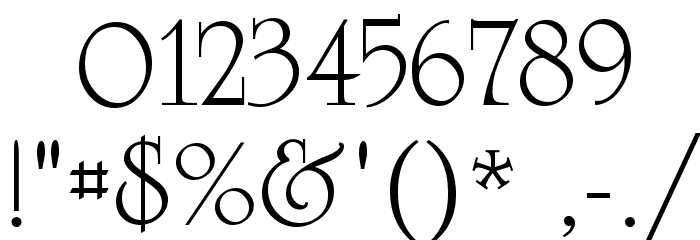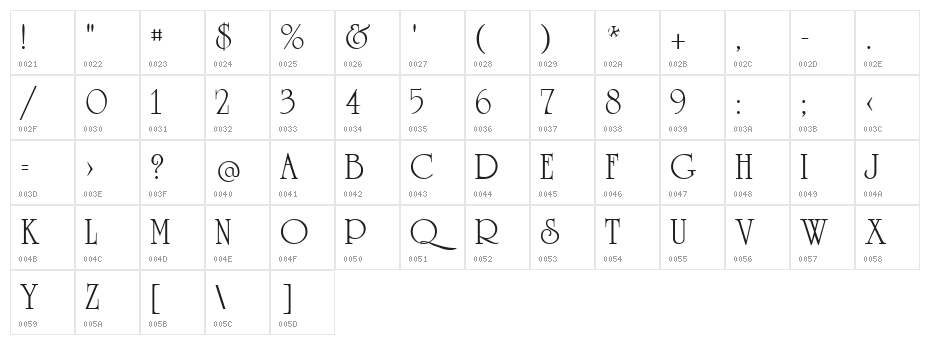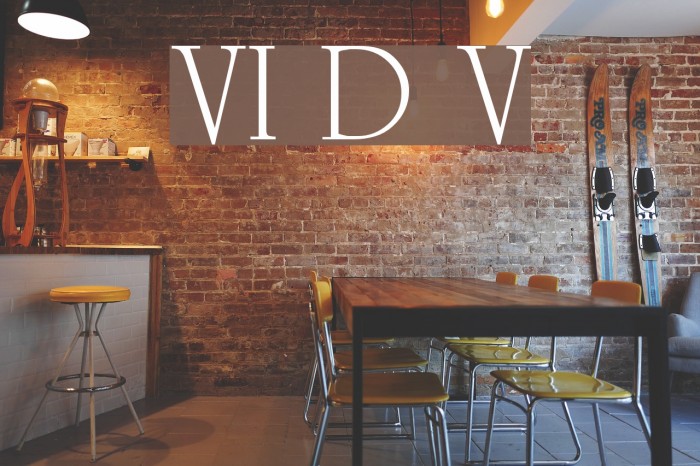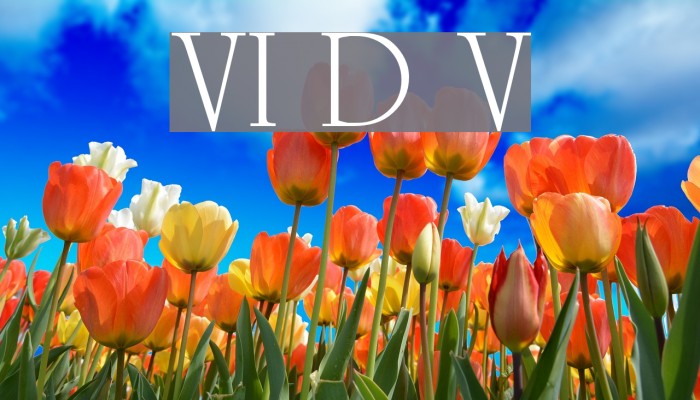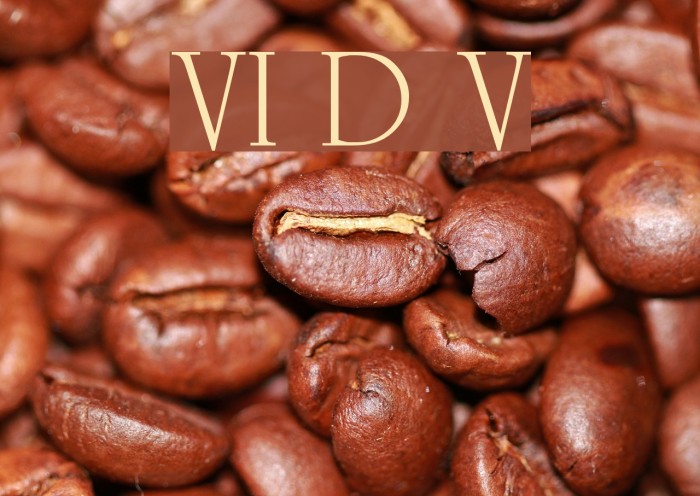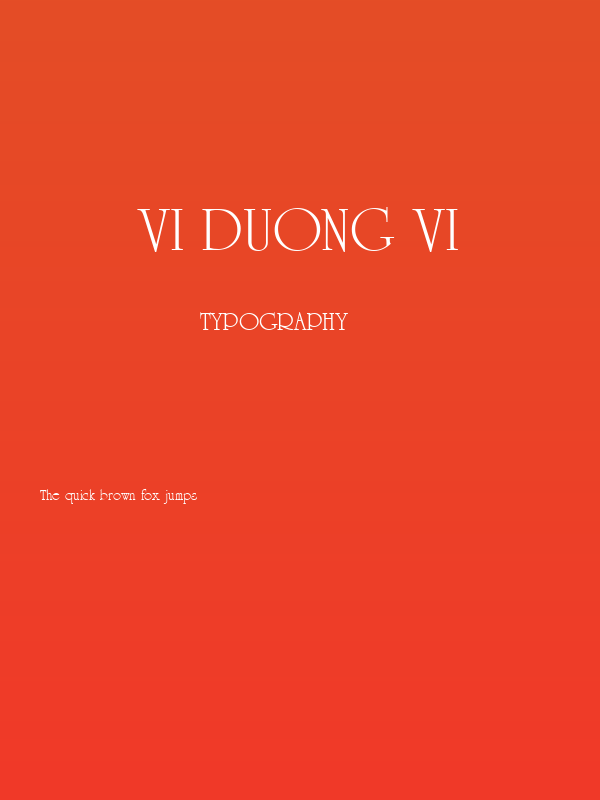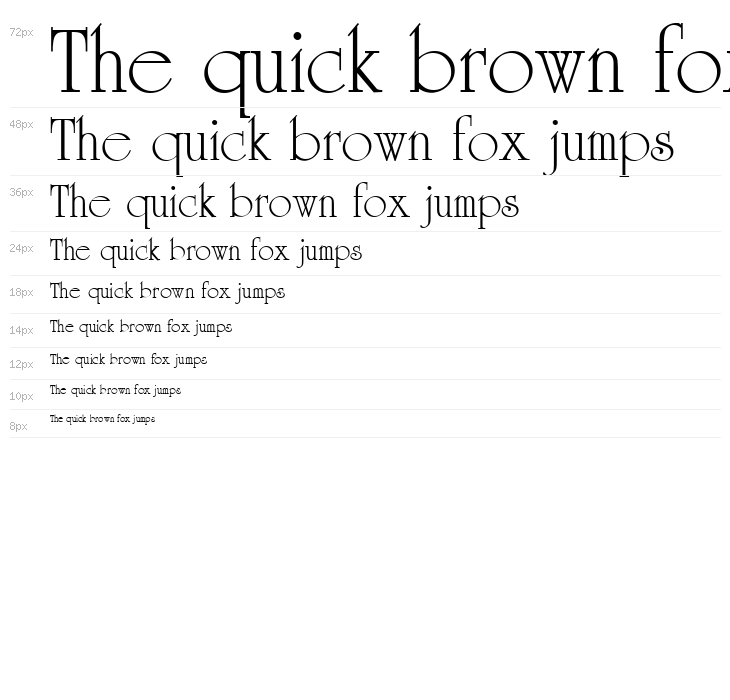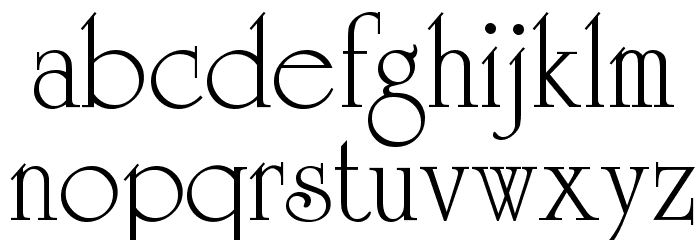
VI Duong Vi Font
VI Duong Vi Description
This elegant serif font features a sophisticated design with a blend of classic and modern elements. The uppercase letters are characterized by their tall, slender forms and subtle curves, giving them a refined appearance. The lowercase letters maintain a consistent style, with slightly exaggerated ascenders and descenders that add a touch of elegance. The numerals are well-proportioned, ensuring readability while maintaining the font's overall aesthetic. Special characters are thoughtfully designed to complement the alphabet, making this font versatile for various applications. Its high contrast in stroke thickness enhances its readability and visual appeal, making it suitable for both print and digital media.
| Use Case | Headlines, Logos, Editorial design |
| Proposed Projects | Ideal for luxury branding, editorial design, wedding invitations, and high-end product packaging. |